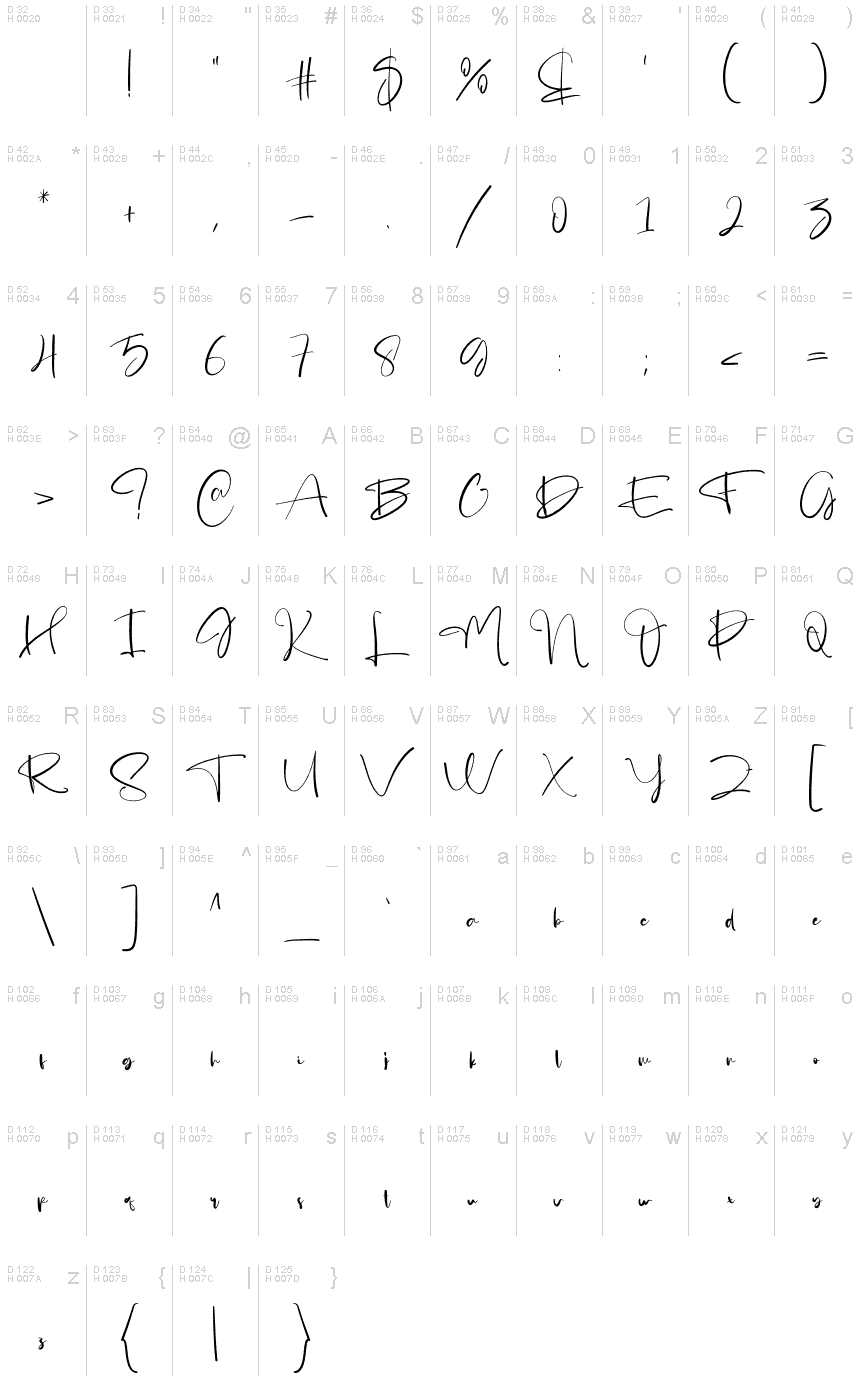
Animate
Meet Animate, a playful and whimsical handwritten font by Scratchones. With its light weight and flowing strokes, this font exudes an air of creativity and spontaneity.
Perfect for children's books and toy packaging, Animate adds a touch of imagination to any project. Its friendly curves also make it an ideal choice for greeting cards or invitations, adding warmth and personality to your messages.
Let Animate bring your designs to life with its lively charm and effortless elegance.